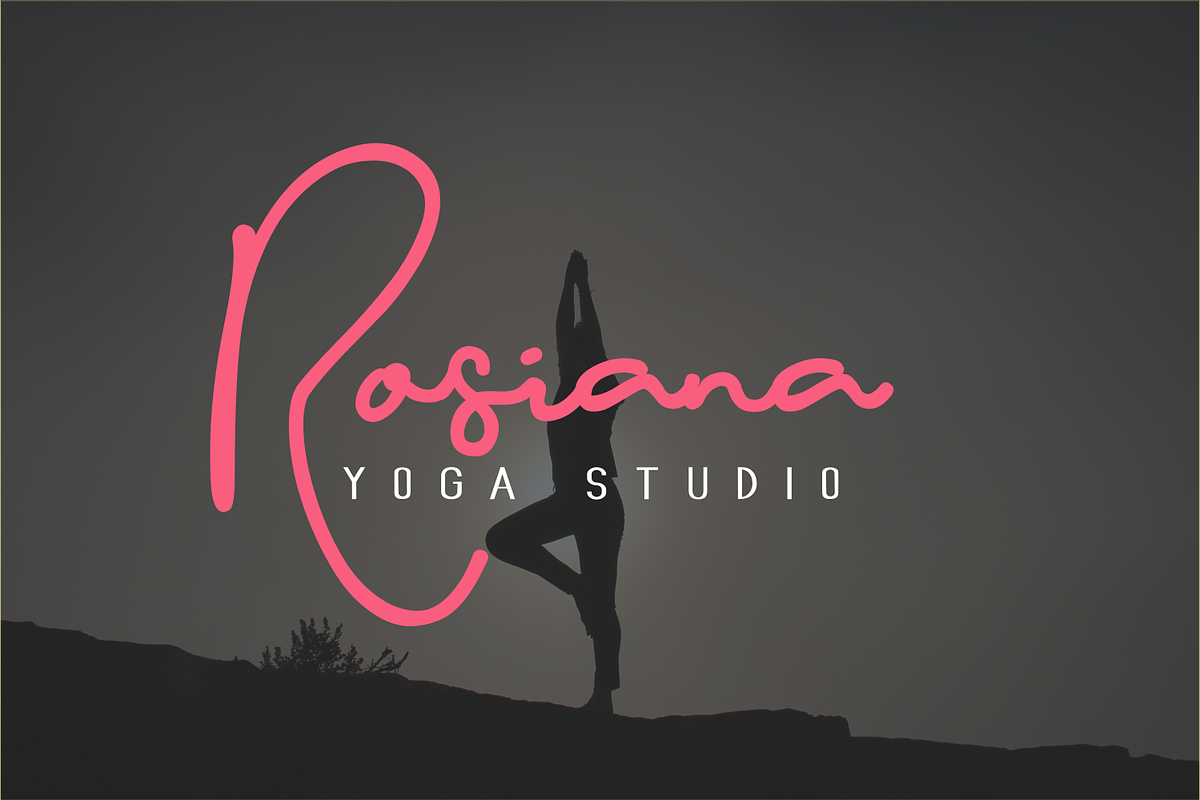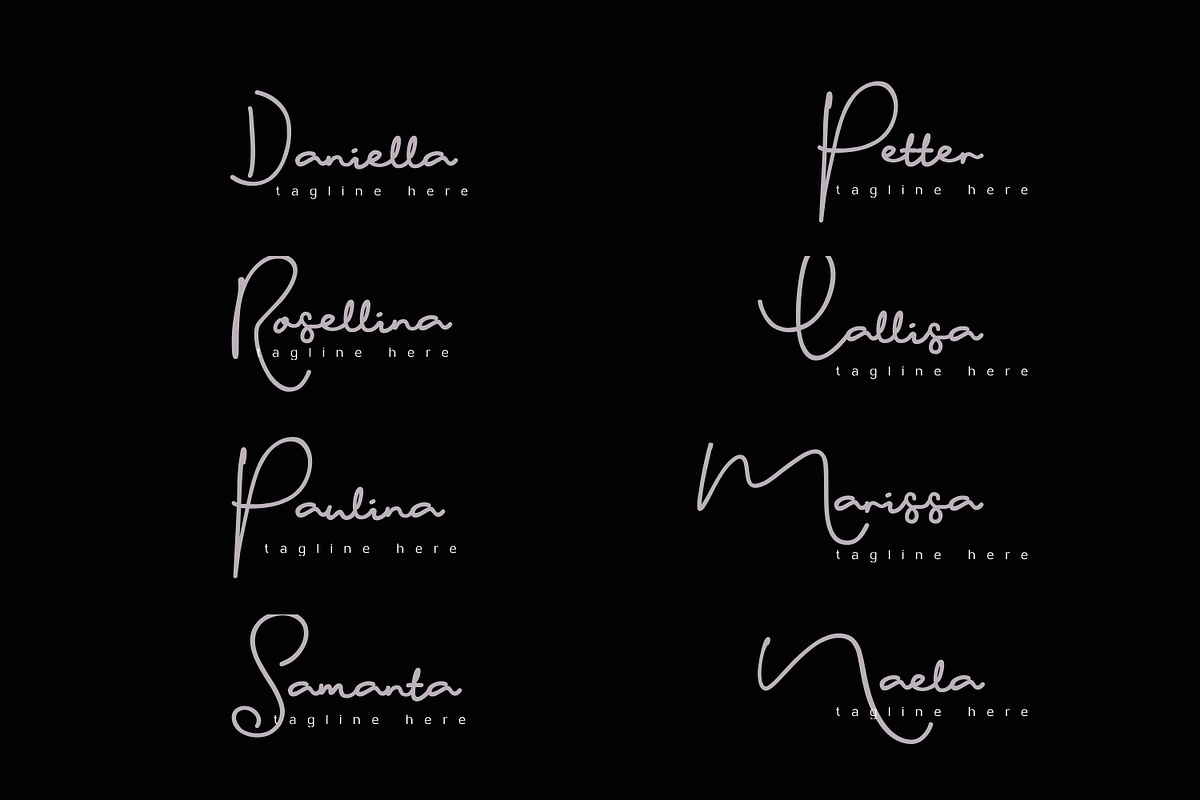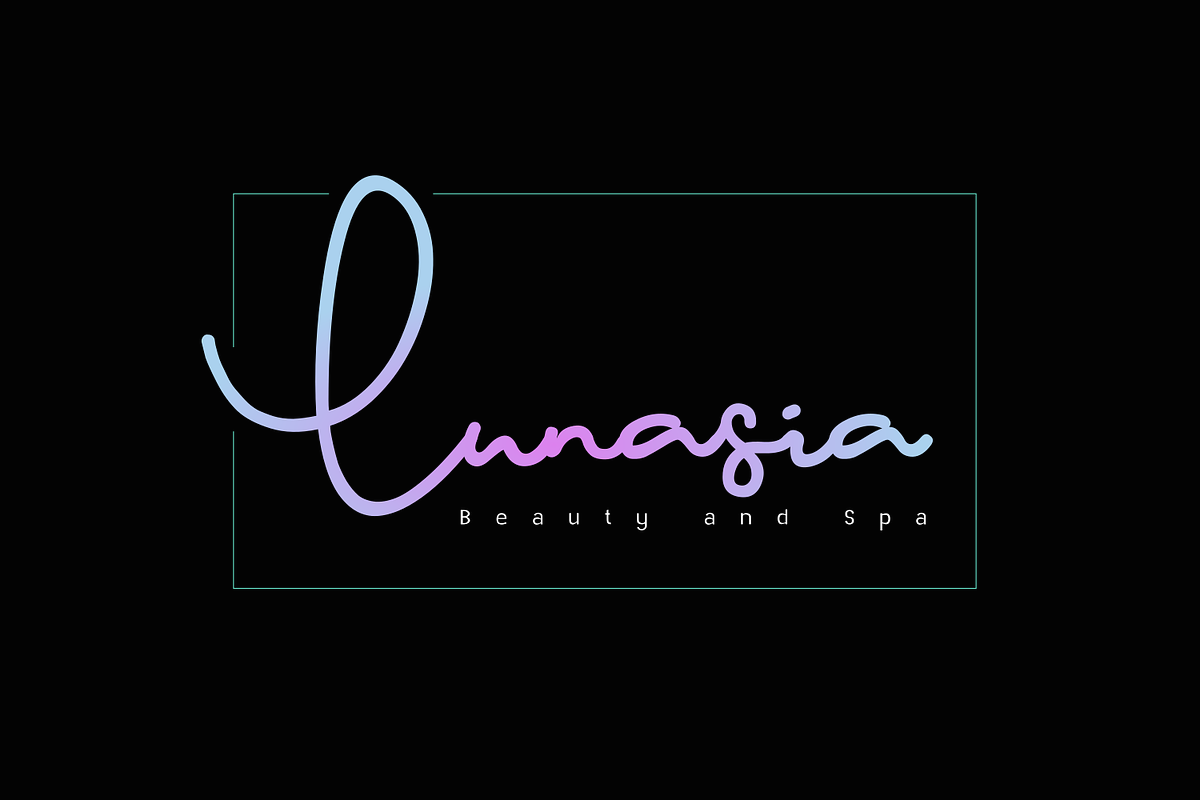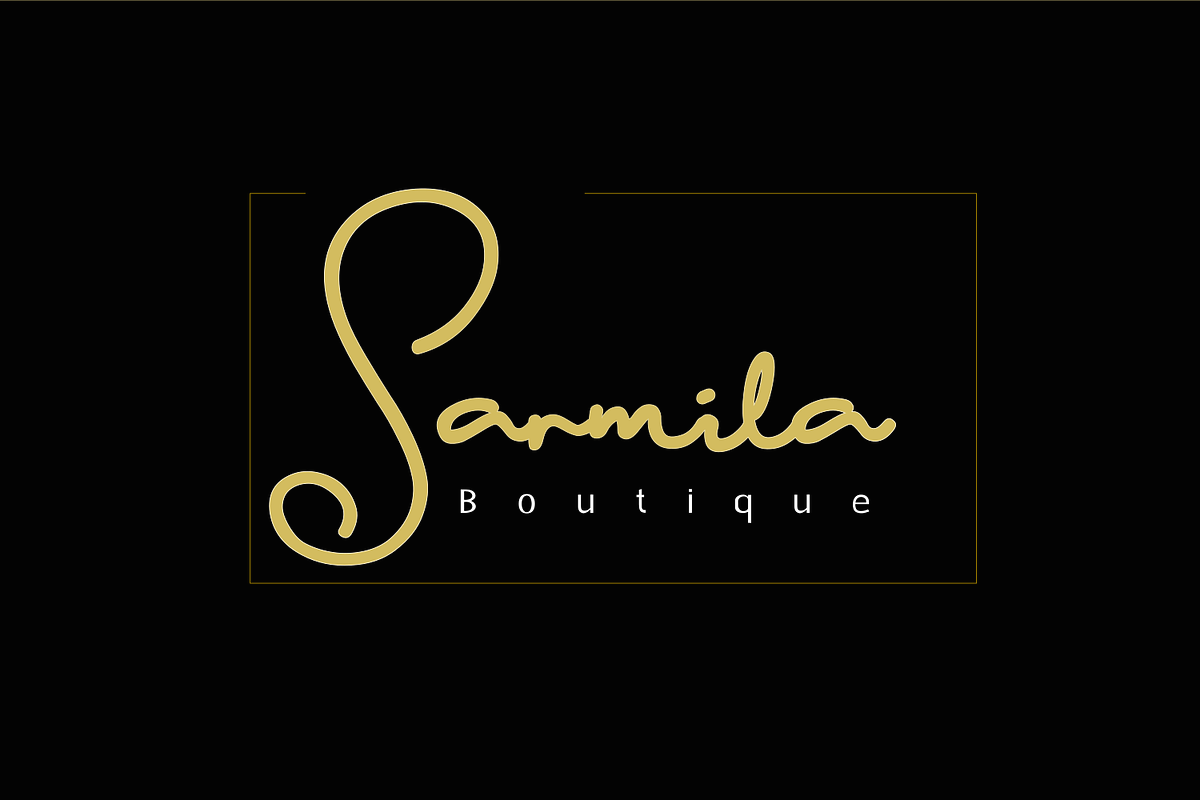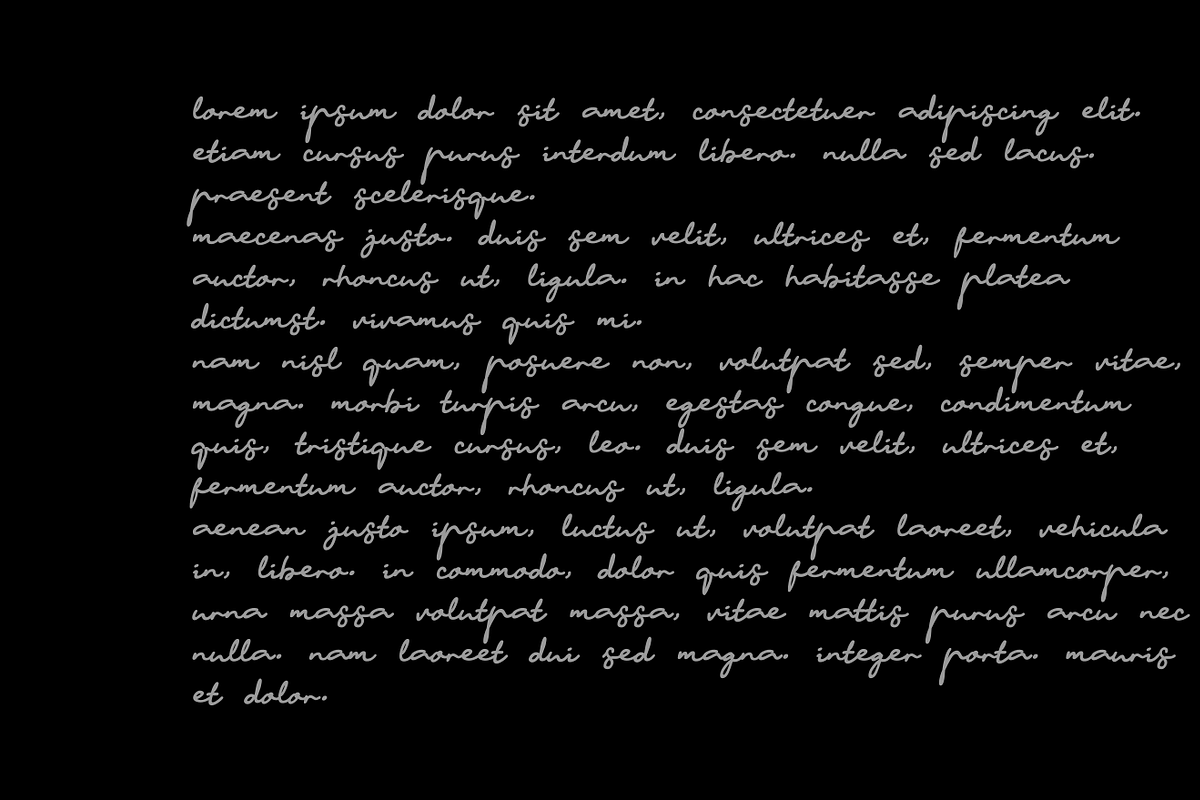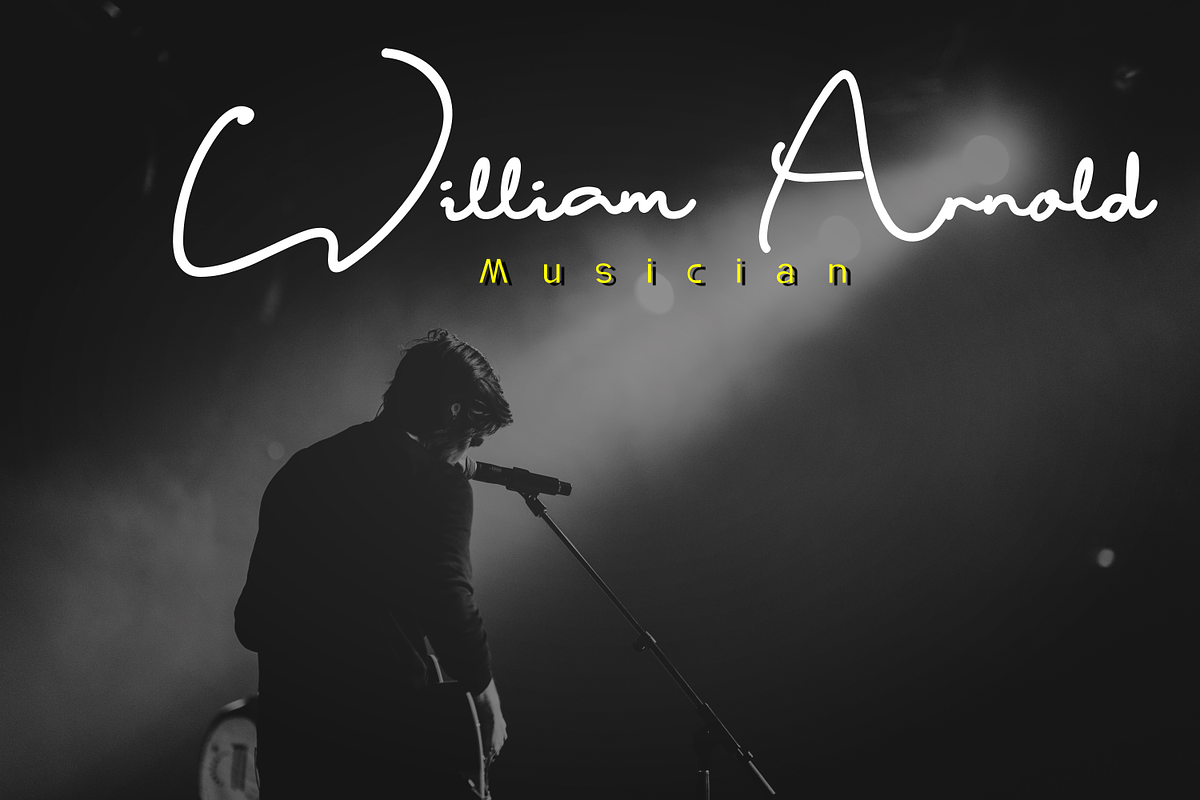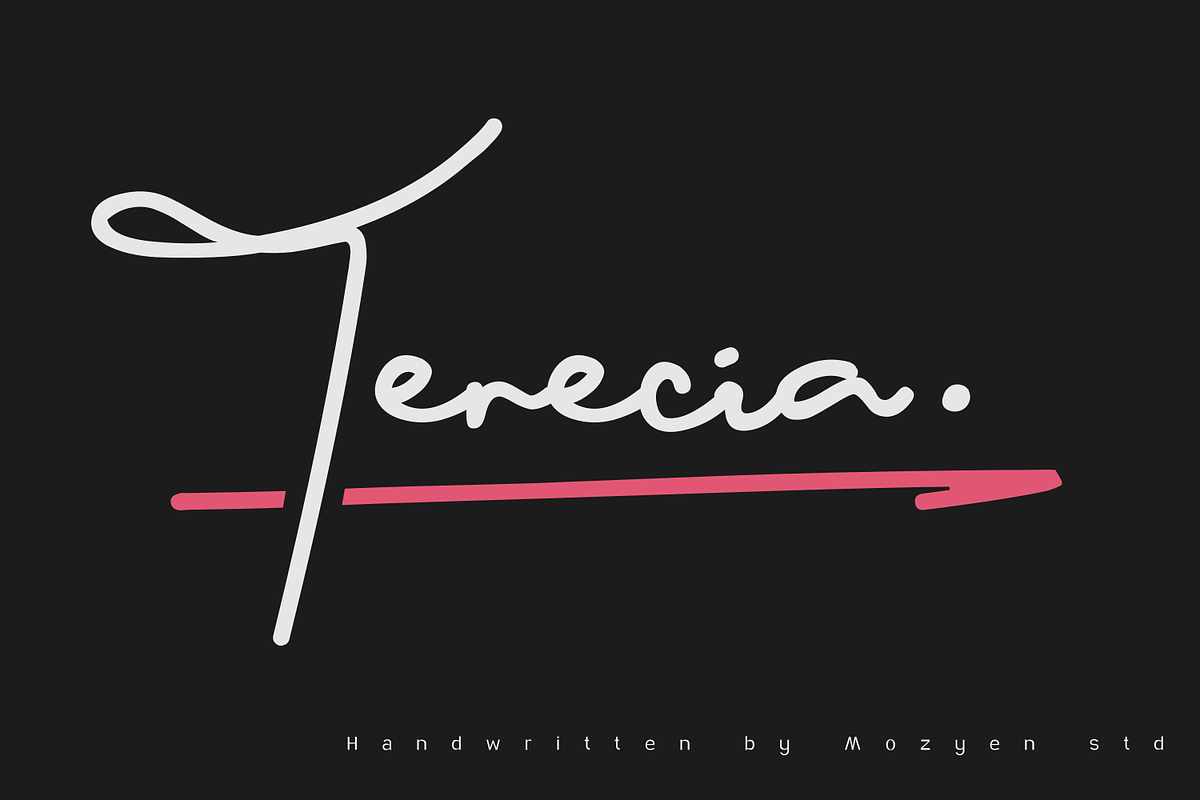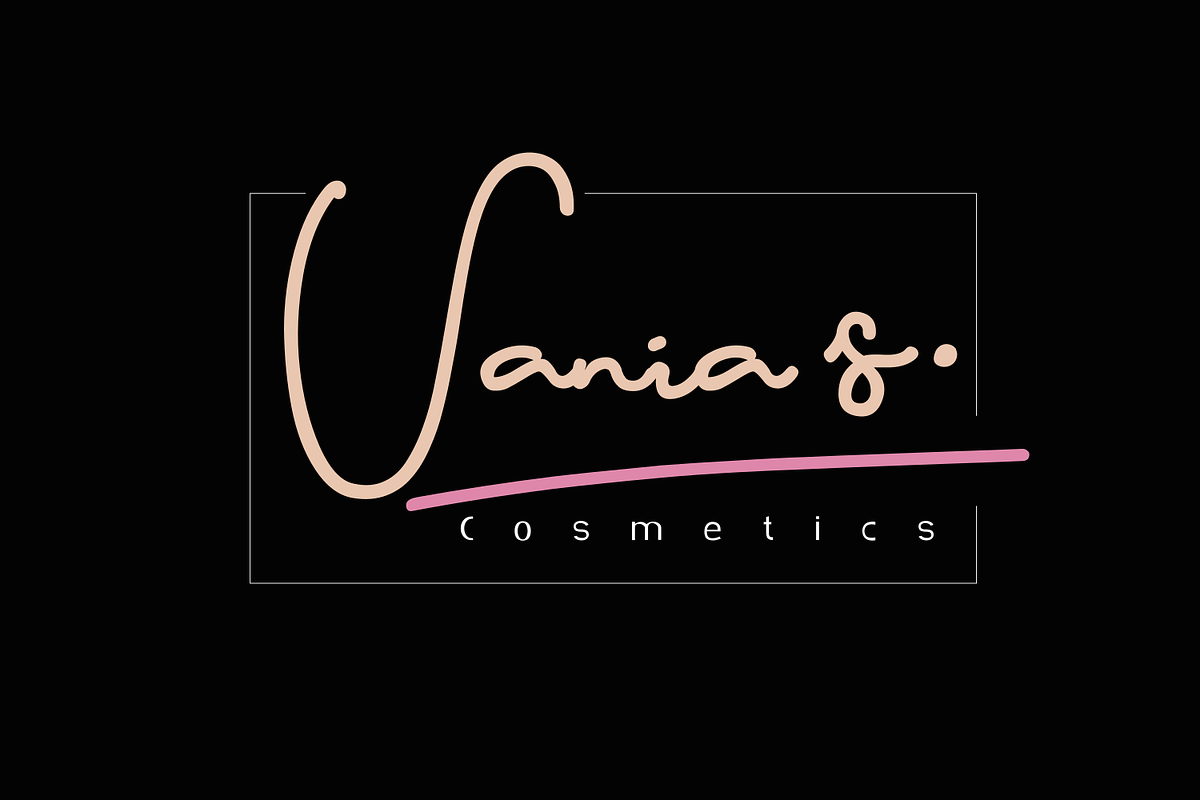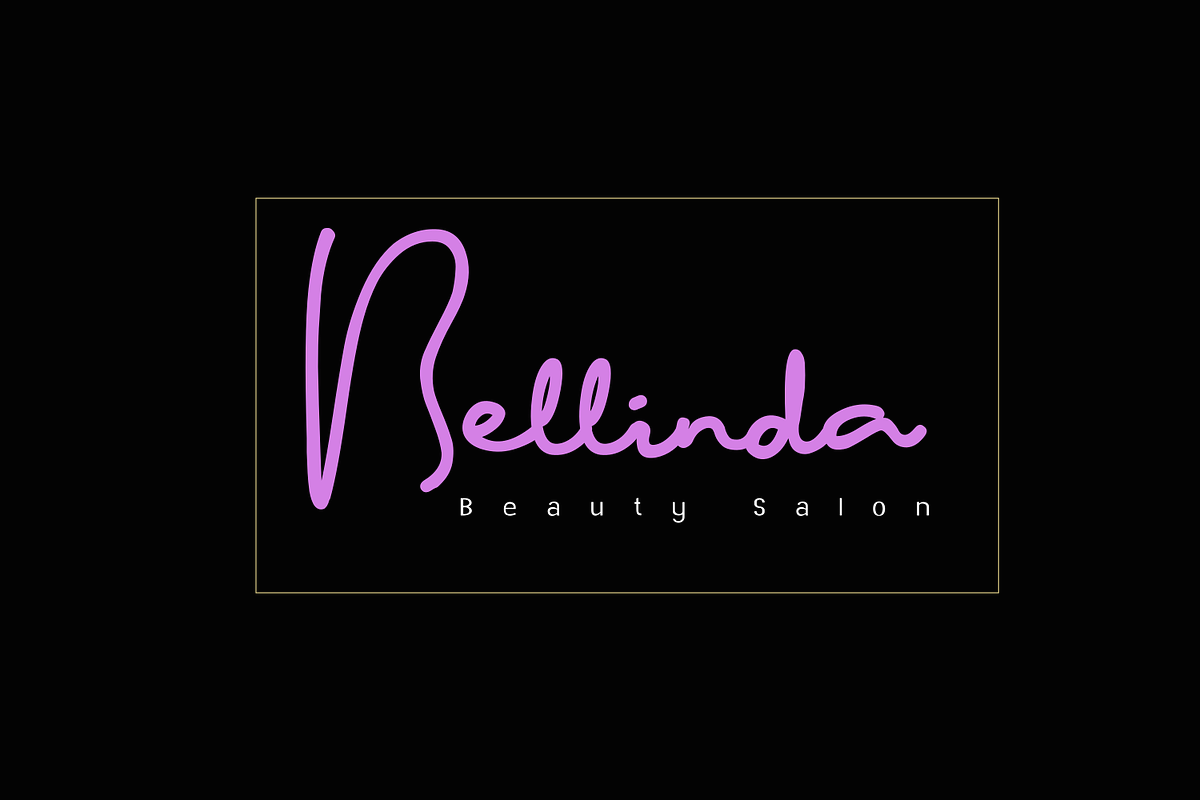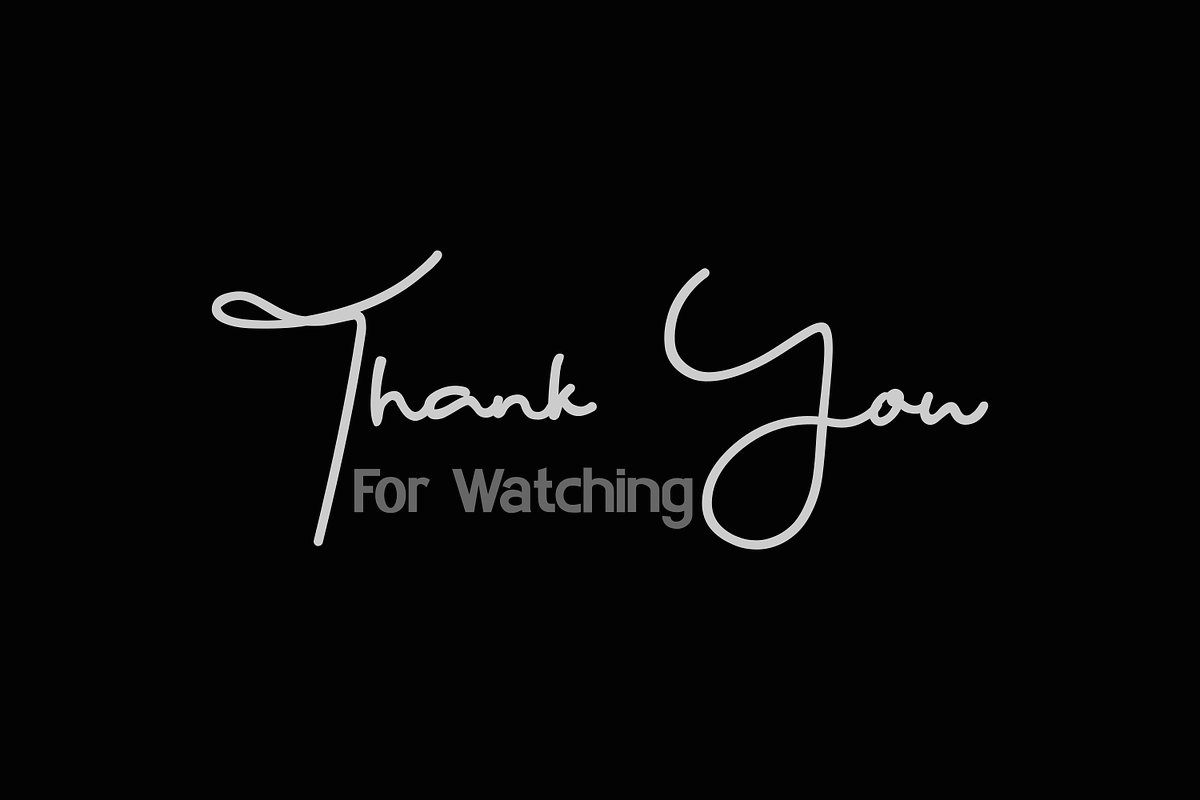
Terecia
Terecia is a smooth, elegant hand-lettered script. The playful rounded characters make it the perfect font for creating stunning branding projects and headlines. Terecia comes packed with swashes, that will allow you to add a decorative touch within seconds.